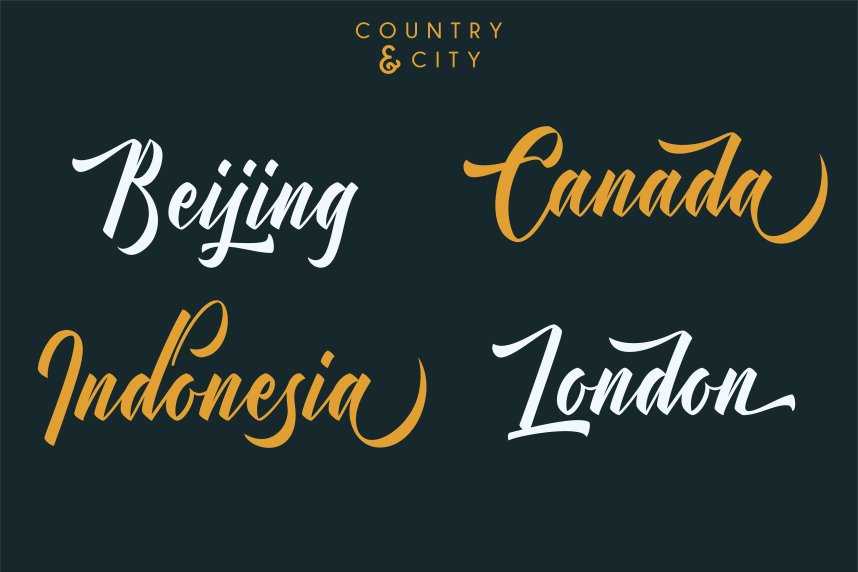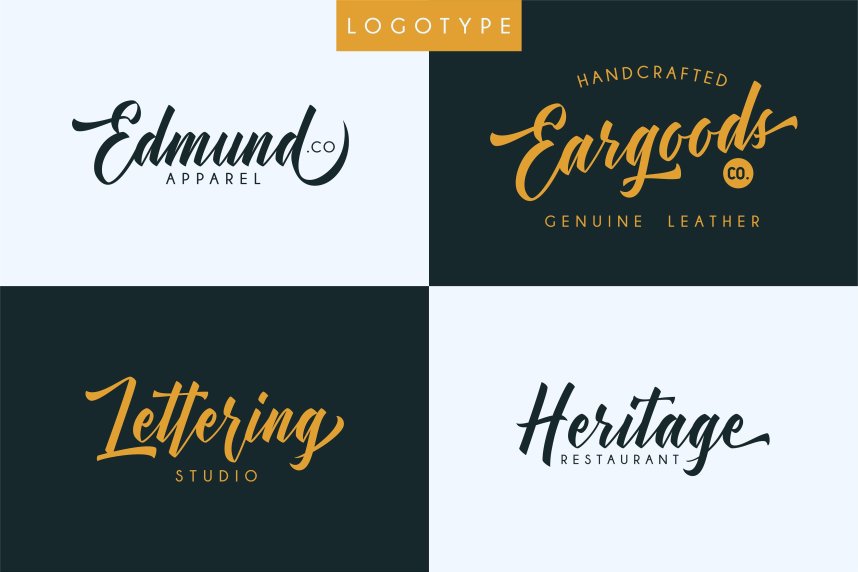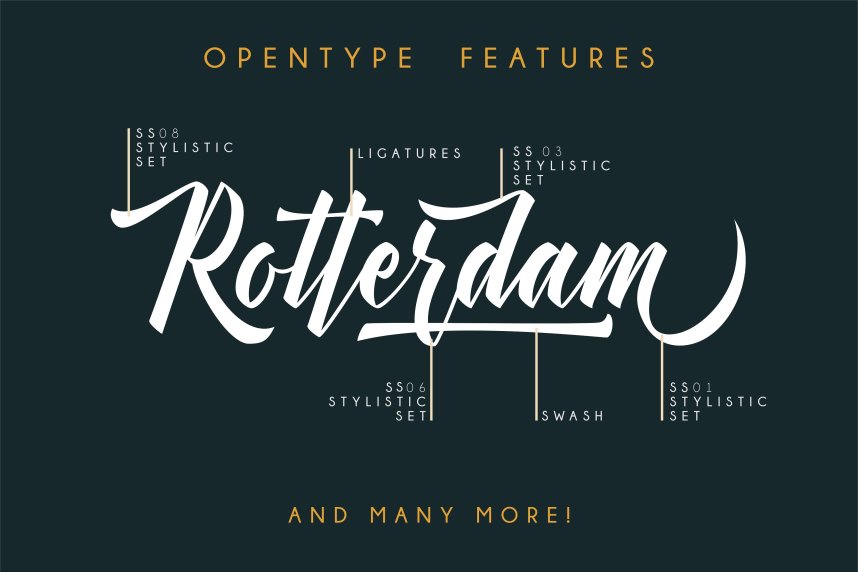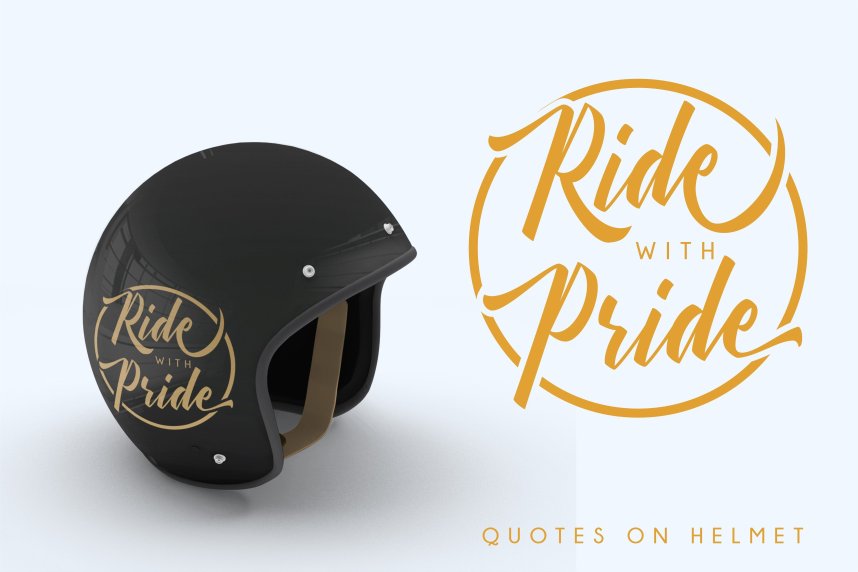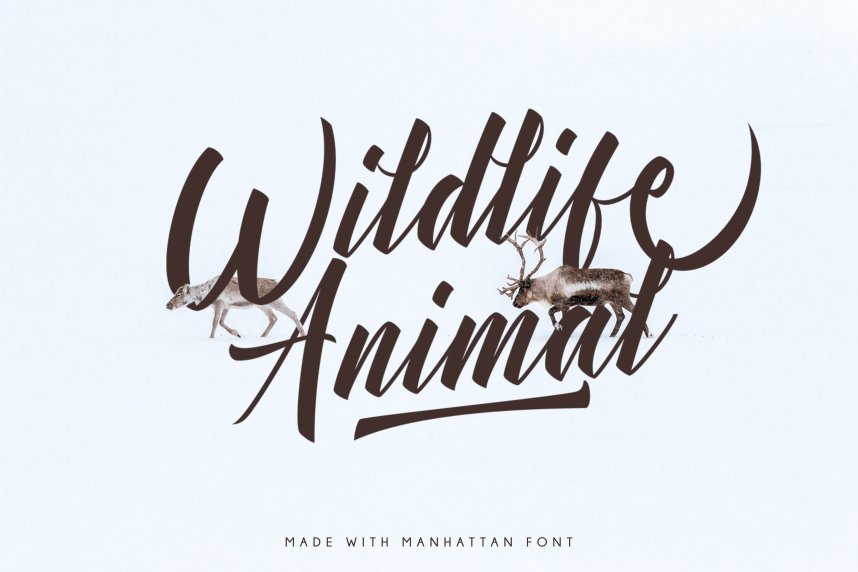
Manhattan Script Font
Hi Designer! The following will be a beautiful script brush font. I think you will like it, add it to your fonts collection! Introducing Manhattan. It is was designed by YdhraStudio. The Manhattan Font is a Modern Handlettering Brush Script font. Give you bonus a swash to make your design look more awesome with Manhattan Font. Manhattan Font has a Multilingual Support. Manhattan Font is great for Logotype, Branding Design, Logo Design, Digital Lettering Arts, T-Shirt / Apparel, Poster, Magazine, Signs, Advertising Design, and any hand-lettered needs.